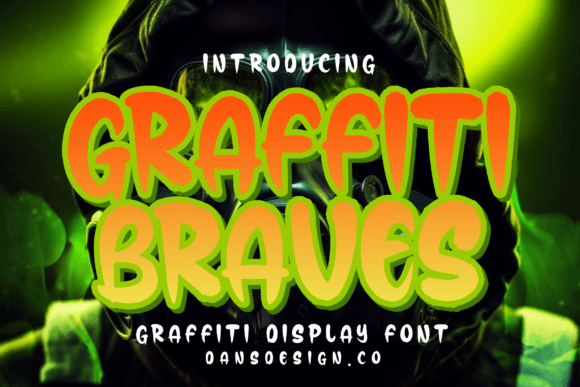
Introducing Graffiti Braves Font: The Ultimate Modern Display Graffiti Font
Are you looking for a font that can add a touch of urban grit and sophistication to your designs? Look no further than the Graffiti Braves Font, a distinct and highly detailed marker display font that’s perfect for creating exquisite retro-urban designs, business branding, logos, apparel designs, and more.
What is Graffiti Braves Font?
Graffiti Braves Font is a modern display graffiti font that’s designed to make a statement. With its bold, edgy lines and urban feel, this font is perfect for anyone looking to add a touch of street art to their designs. Whether you’re a graphic designer, a business owner, or an artist, Graffiti Braves Font is a versatile and highly usable font that can help you achieve your creative goals.
Key Features of Graffiti Braves Font
So what makes Graffiti Braves Font so special? Here are just a few of its key features:
- Distinct and highly detailed design: Graffiti Braves Font features a unique and intricate design that’s sure to turn heads. Its bold lines and urban feel make it perfect for creating eye-catching designs that demand attention.
- Marker display font: This font is designed to mimic the look of marker pen graffiti, giving it a raw, urban feel that’s perfect for street art-inspired designs.
- Retro-urban style: Graffiti Braves Font has a distinctly retro-urban feel that’s perfect for creating designs that evoke the spirit of the city.
- Highly versatile: Whether you’re designing a logo, a business card, or a billboard, Graffiti Braves Font is a highly versatile font that can be used for a wide range of applications.
Uses for Graffiti Braves Font
So what can you use Graffiti Braves Font for? The possibilities are endless! Here are just a few ideas to get you started:
- Logo design: Graffiti Braves Font is perfect for creating bold, eye-catching logos that make a statement.
- Business branding: Use Graffiti Braves Font to create a unique and memorable brand identity that sets your business apart from the competition.
- Apparel designs: Graffiti Braves Font is a great choice for designing t-shirts, hoodies, and other apparel items that need a bold, urban look.
- Street art: With its raw, urban feel, Graffiti Braves Font is perfect for creating street art-inspired designs that evoke the spirit of the city.
Benefits of Using Graffiti Braves Font
So why choose Graffiti Braves Font for your design projects? Here are just a few benefits of using this amazing font:
- Instant recognition: Graffiti Braves Font is a highly distinctive font that’s sure to grab attention and make your designs stand out.
- Urban credibility: With its raw, urban feel, Graffiti Braves Font is perfect for creating designs that evoke the spirit of the city.
- Highly versatile: Graffiti Braves Font can be used for a wide range of applications, from logo design to apparel design and more.
- Easily readable: Despite its bold, edgy lines, Graffiti Braves Font is surprisingly easy to read, making it perfect for use in a variety of contexts.
Tips for Using Graffiti Braves Font
So how can you get the most out of Graffiti Braves Font? Here are a few tips to keep in mind:
- Use it boldly: Graffiti Braves Font is a bold, attention-grabbing font that’s perfect for making a statement. Don’t be afraid to use it in large sizes to create maximum impact.
- Experiment with colors: Graffiti Braves Font looks great in a wide range of colors, from bold brights to more muted pastels. Experiment with different colors to find the perfect look for your design.
- Pair it with other fonts: Graffiti Braves Font can be paired with a wide range of other fonts to create interesting and dynamic designs. Try pairing it with a clean sans-serif font for a bold, urban look.
In conclusion, Graffiti Braves Font is an amazing modern display graffiti font that’s perfect for creating exquisite retro-urban designs, business branding, logos, apparel designs, and more. With its bold, edgy lines and urban feel, this font is sure to grab attention and make your designs stand out. Whether you’re a graphic designer, a business owner, or an artist, Graffiti Braves Font is a versatile and highly usable font that can help you achieve your creative goals.